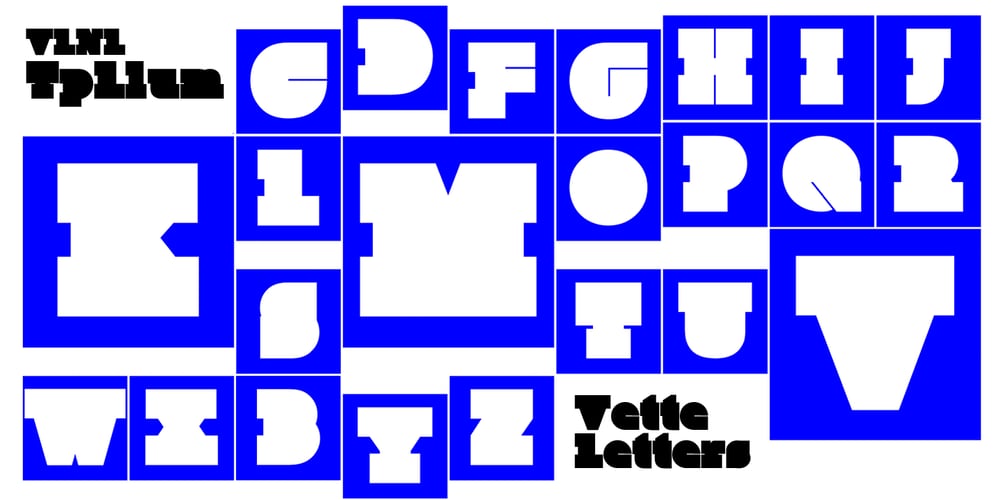
VLNL TpLlum
VLNL TpLlum font
VLNL TpLlum Font Family was designed by published by VetteLetters. VLNL TpLlum contains 1 styles and family package options. TpLlum is a typeface designed by TwoPoints for a festival in Barcelona called ‘Montjuïc de Nit’. Llum means light in Catalan. In the Montjuïc de Nit project the font was used in white over a dark grey background, letting the light of a backlit poster shine through. For this purpose the typeface had to be very bright, which was made possible by its heavy cut.